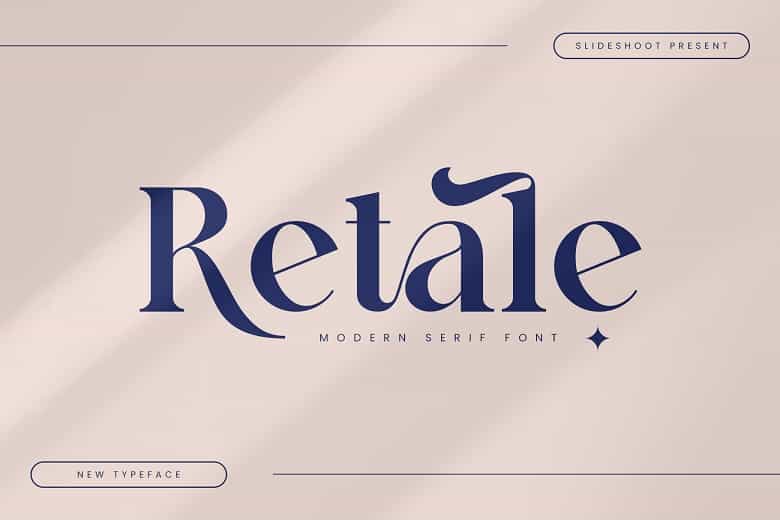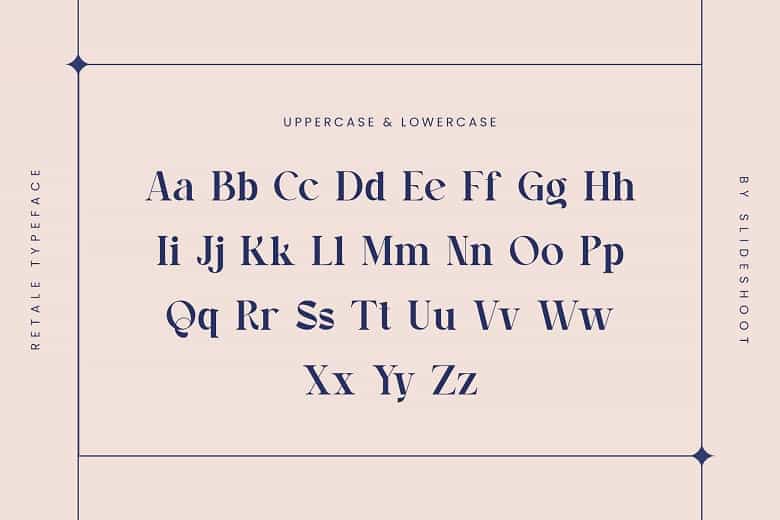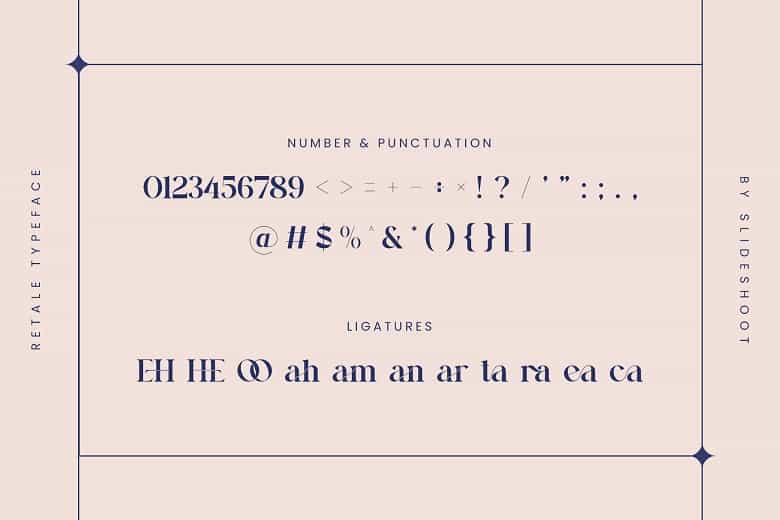
Retale is a new contemporary font designed in the serif style. He has a beautiful character, of course. It is suitable for use in invitation card designs, logos of companies, movie titles and names, business cards, books titles, brands and many more designs. Its stylish on and off sets and ligatures make this font a great companion to any project.